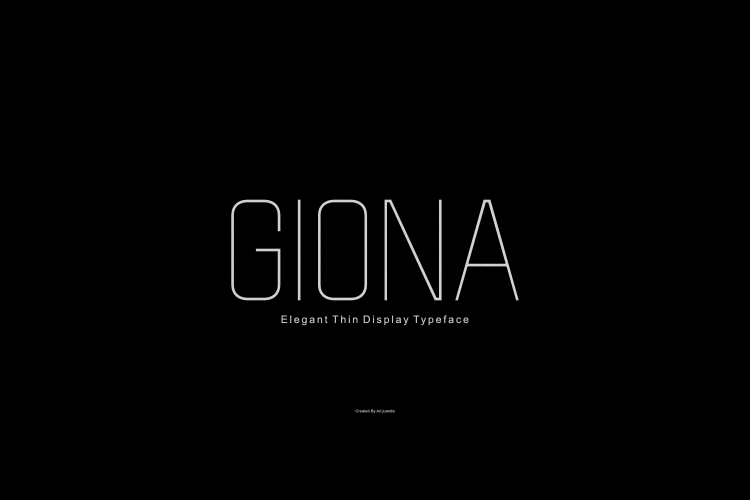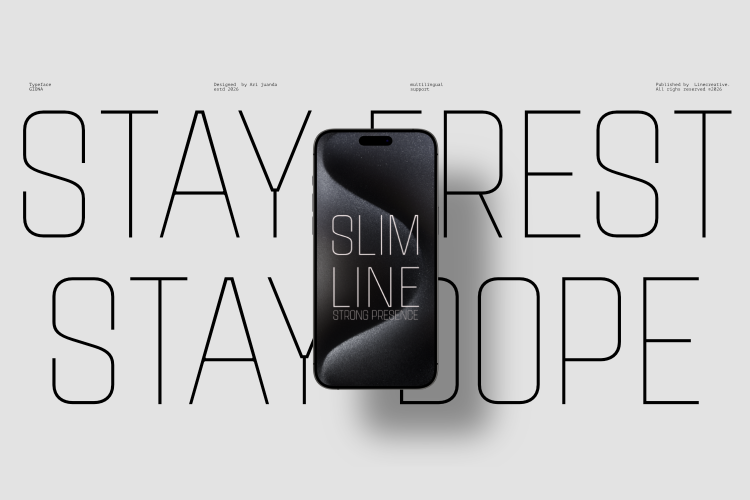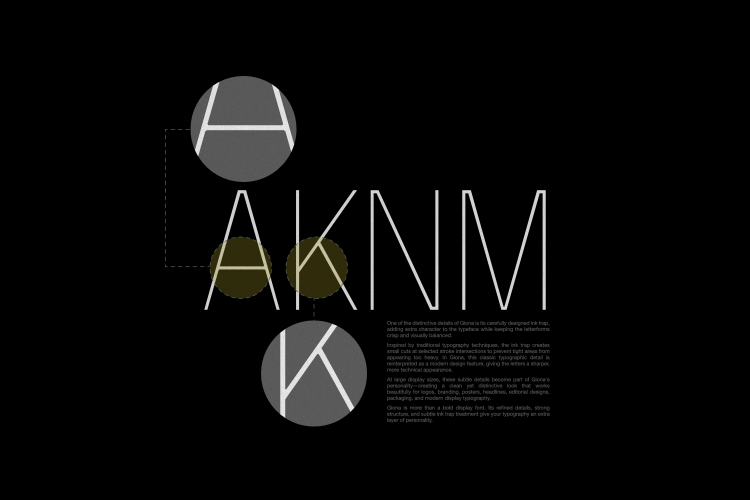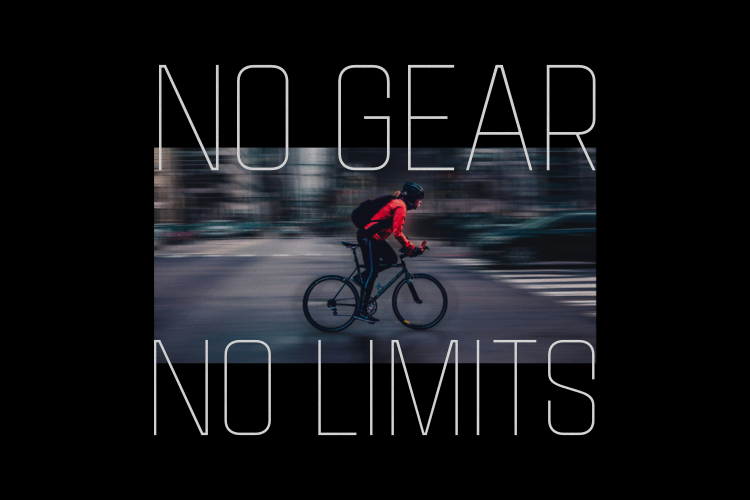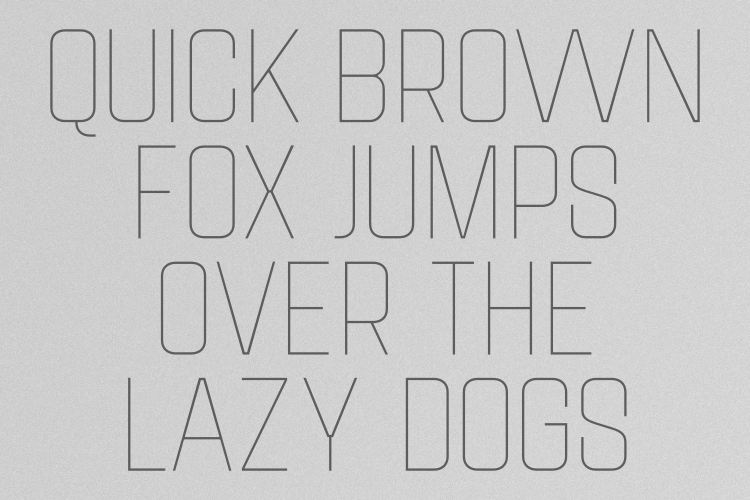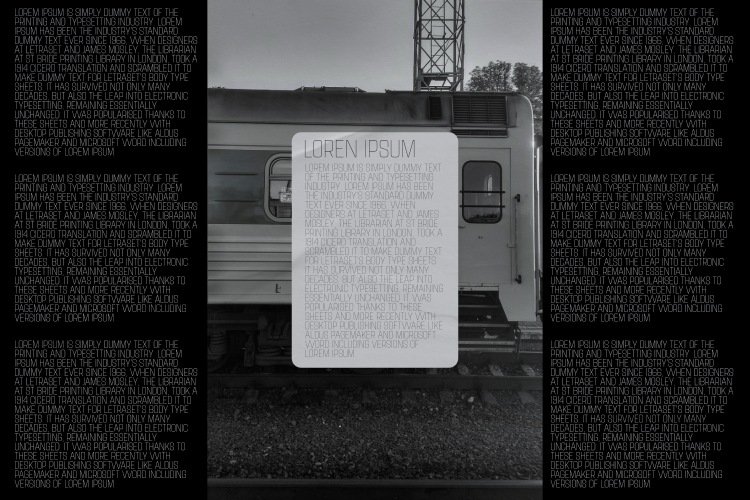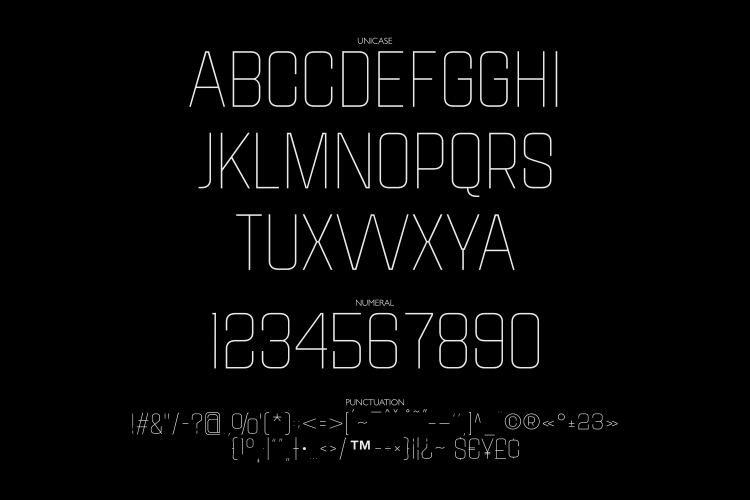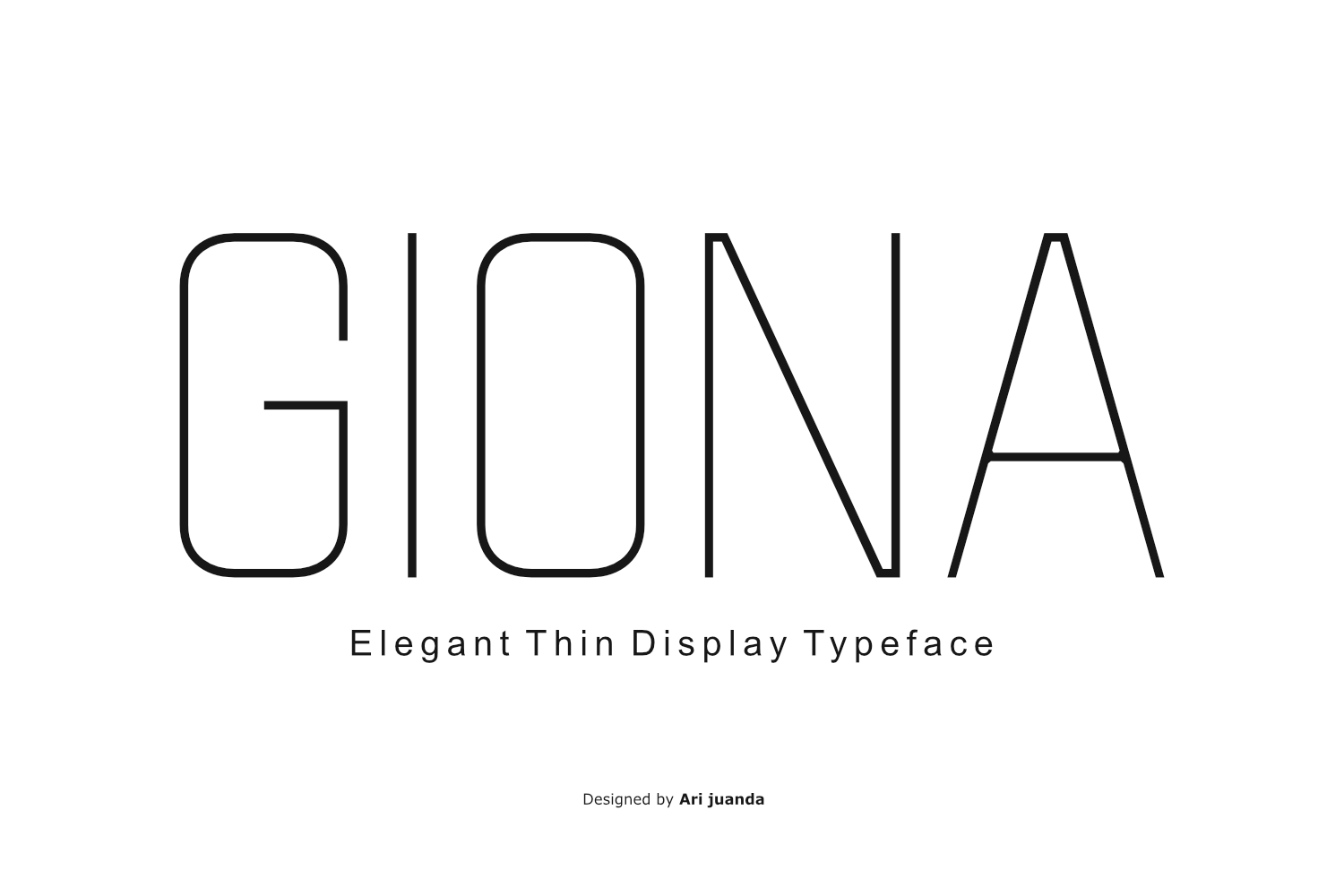
Giona – Elegant Thin Condensed Display Font
Meet Giona, an elegant thin condensed display font designed for modern typography, minimalist branding, editorial layouts, fashion projects, and sophisticated visual identities. With its slender monoline construction, refined proportions, and distinctive geometric character, Giona creates a clean and contemporary look while maintaining a strong visual presence.
Giona features a thin and narrow display style that allows typography to feel lightweight, spacious, and elegant. Its carefully designed letterforms work beautifully at large sizes, making it ideal for headlines, titles, posters, logos, packaging, and other projects where typography needs to communicate a refined and modern aesthetic.
One of Giona’s distinctive details is its carefully designed ink trap. Inspired by traditional typography techniques, the subtle cuts and refined intersections add extra character to the typeface while helping maintain clarity and visual balance. At display sizes, these details become part of Giona’s personality, creating a sophisticated typographic style that feels both technical and artistic.
With its minimalist construction and elegant condensed proportions, Giona is an excellent choice when you need a thin display font, elegant font, minimalist font, condensed font, or modern typography with a distinctive personality.
Features
- Elegant Thin Display Typeface
- Condensed / Narrow Proportions
- Clean Monoline Construction
- Distinctive Ink Trap Details
- Uppercase & Lowercase
- Numerals & Punctuation
- Superscript Characters
- Ordinal Characters
- Multilingual Support
- Latin Character Support
- Modern Geometric Letterforms
- Designed for Professional Display Typography
Why You’ll Love Giona
Elegant & Lightweight — Giona’s thin construction creates a sophisticated visual language that feels refined, modern, and effortlessly clean.
Distinctive Ink Trap — Carefully placed ink trap details add personality to the letterforms and create subtle visual interest, especially when Giona is used at large display sizes.
Condensed & Space Efficient — Its narrow proportions allow you to create impressive headlines and typography compositions without requiring excessive horizontal space.
Minimalist Character — Giona works beautifully with clean layouts, monochromatic designs, modern photography, and minimalist branding systems.
Strong Display Presence — Although its strokes are delicate, Giona creates a powerful visual statement when used for large headlines, titles, logos, and poster typography.
Versatile Modern Style — From fashion and editorial design to technology, architecture, packaging, and contemporary branding, Giona can adapt to a wide range of creative directions.
Giona is more than a thin typeface. Its refined details, narrow proportions, and carefully balanced letterforms give your typography a distinctive identity. Use it for a sophisticated fashion logo, elegant editorial headline, minimalist brand identity, modern poster, or clean product packaging.
If you’re looking for an elegant thin font, condensed display font, minimalist font, modern display font, fashion font, or luxury branding font, Giona brings a refined and contemporary character to your next creative project.